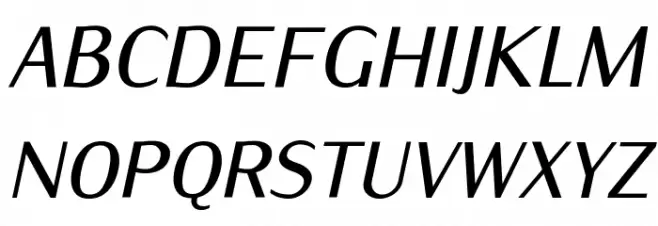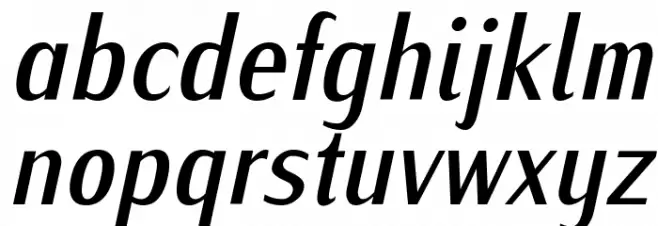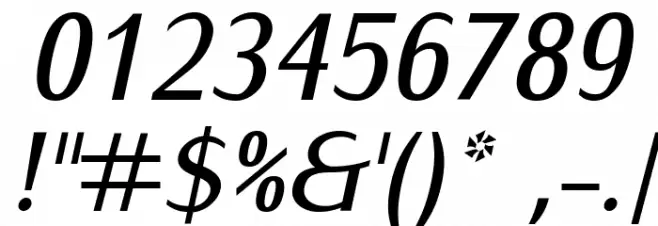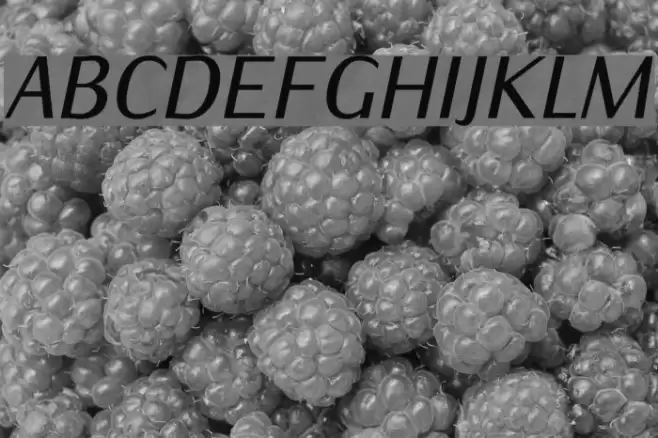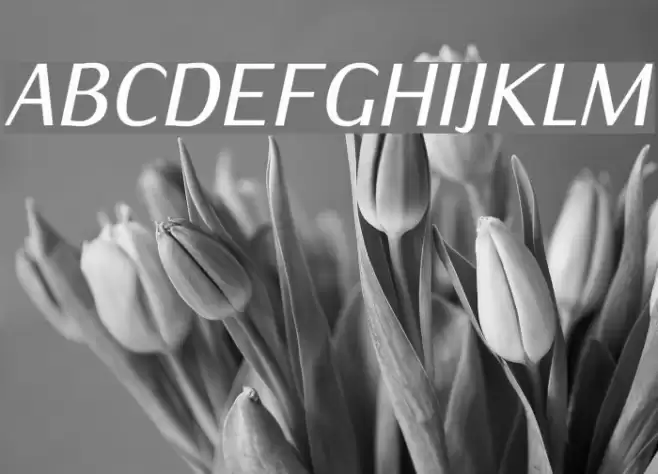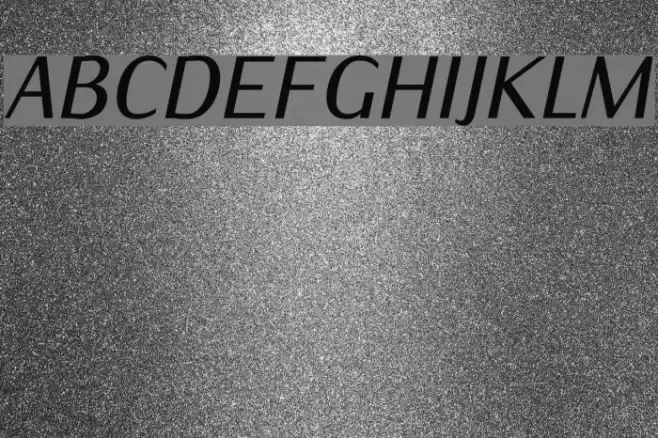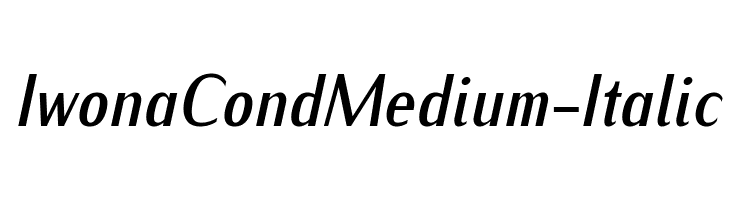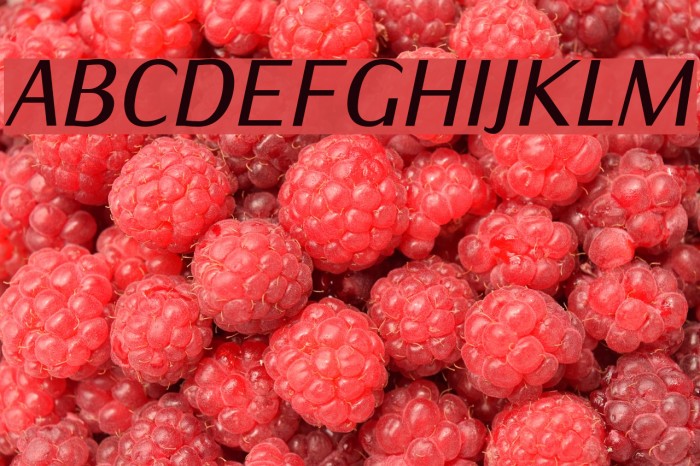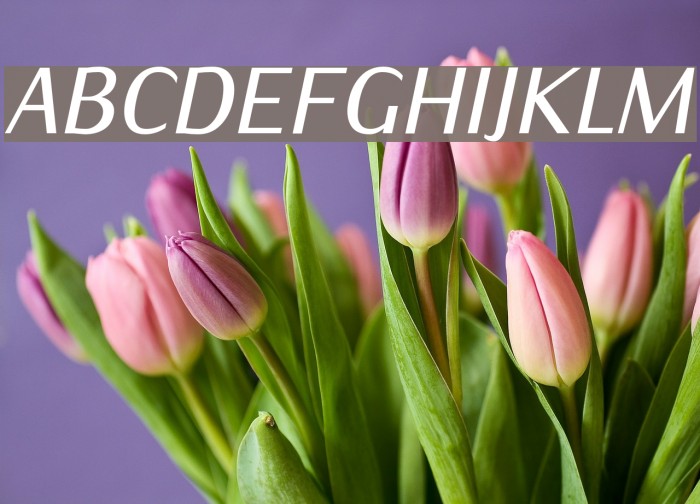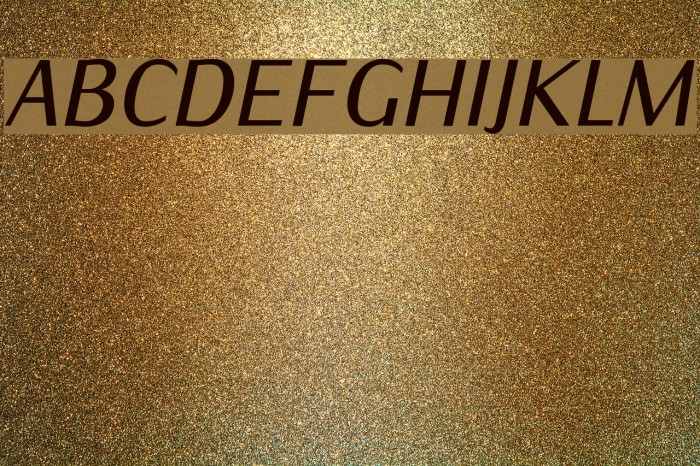
IwonaCondMedium-Italic
This font features a sleek and modern design with a slightly condensed structure, making it ideal for space-efficient text. The italic style adds a dynamic and elegant touch, enhancing readability while maintaining a professional appearance. The characters exhibit a consistent stroke width, providing a harmonious and balanced look. The font includes a full set of uppercase and lowercase letters, numerals, and a variety of special characters, ensuring versatility for various applications. Its clean lines and subtle curves contribute to a sophisticated aesthetic, suitable for both digital and print media.
A modern, condensed italic font with a sleek and professional design.
- Proposed Projects: Ideal for branding, editorial design, advertising, and web design projects.
- Width: Condensed